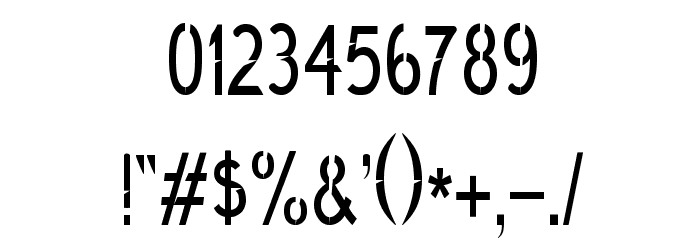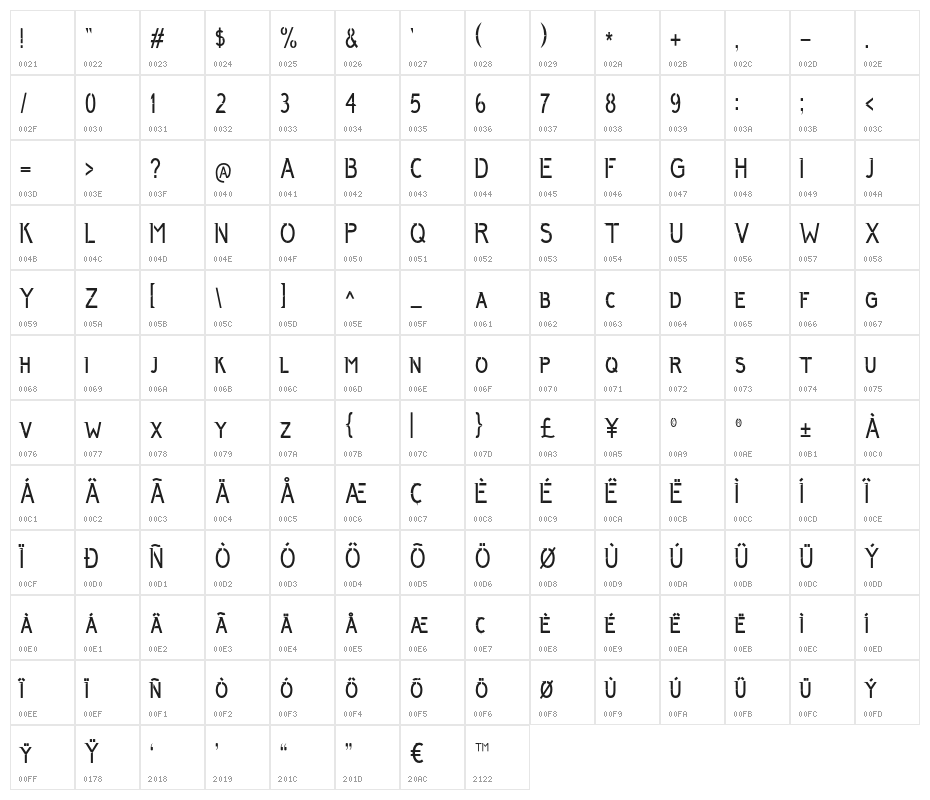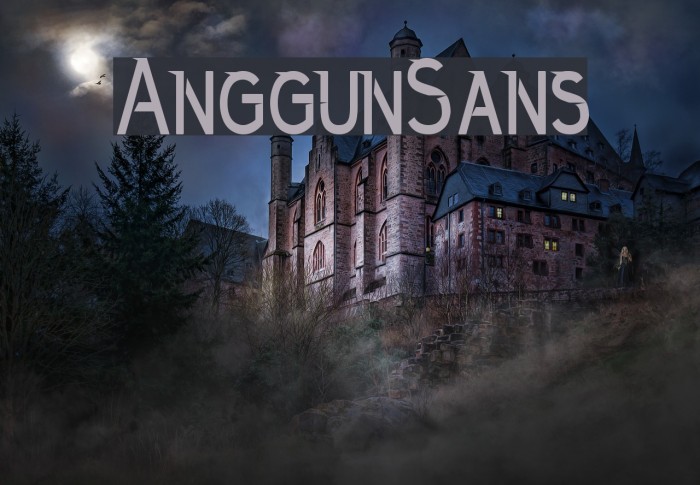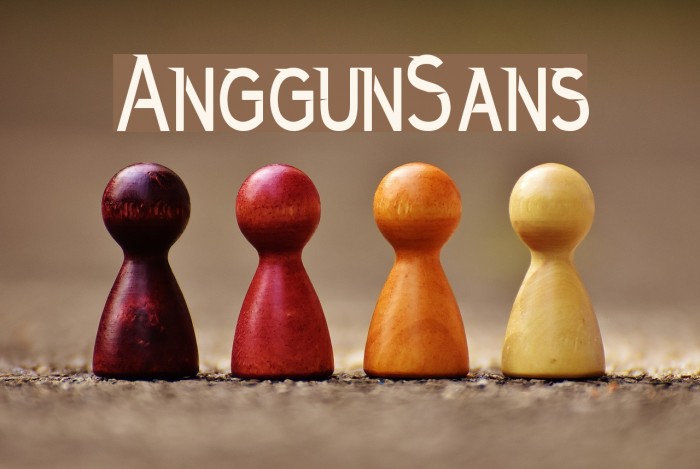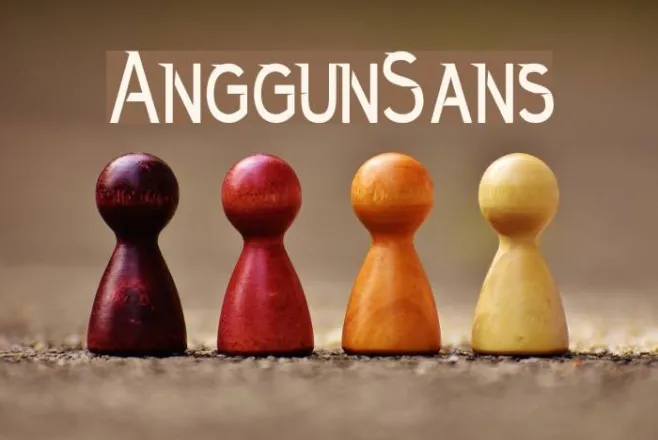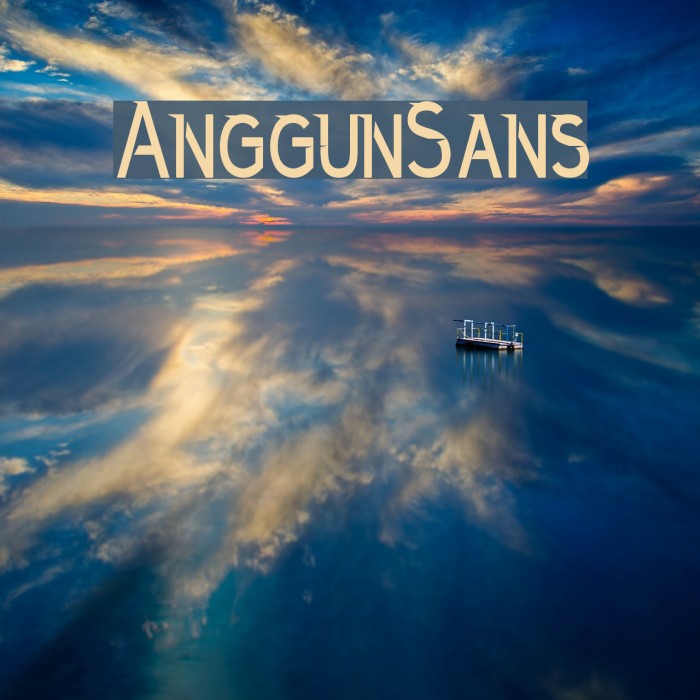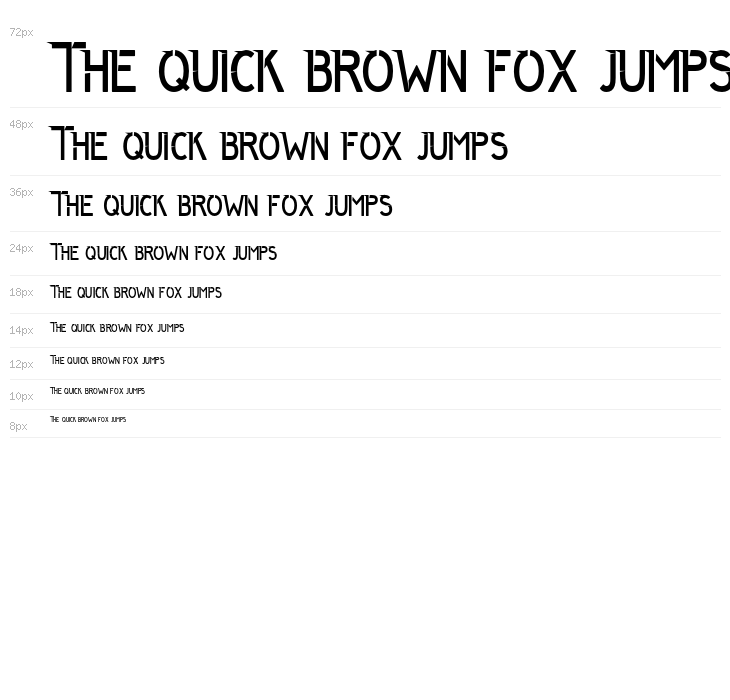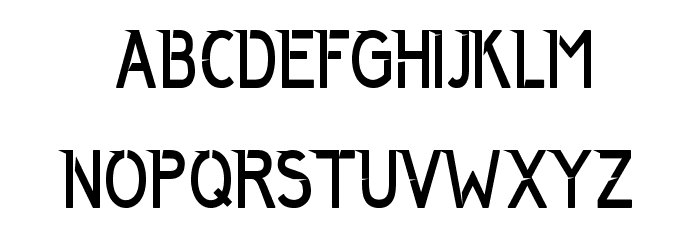
AnggunSans Font
AnggunSans Description
This font features a modern and geometric design with clean lines and a distinct angular style. The uppercase letters are bold and striking, making a strong visual impact. The lowercase letters maintain the same geometric aesthetic, providing consistency across the typeface. Numbers and special characters are designed to complement the overall look, ensuring versatility in various applications. The font's sharp edges and contemporary feel make it suitable for modern design projects.